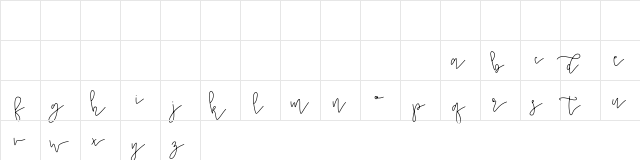
Complete Bridal Shower Monoline Script Regular glyph index. Displaying only characters natively supported by Bridal Shower Monoline Script Regular font.
Bridal Shower Monoline Script flows with the natural rhythm of handwritten lettering, making it ideal for designs that call for warmth and personal expression.
Font Pairing: Combine Bridal Shower Monoline Script with a simple geometric sans for maximum contrast - the tension between flowing curves and clean structure is a classic typographic pairing.
Pro Tip: Use Bridal Shower Monoline Script for short runs of text - names, titles, or taglines. Extended body copy in script faces tires the eye quickly.